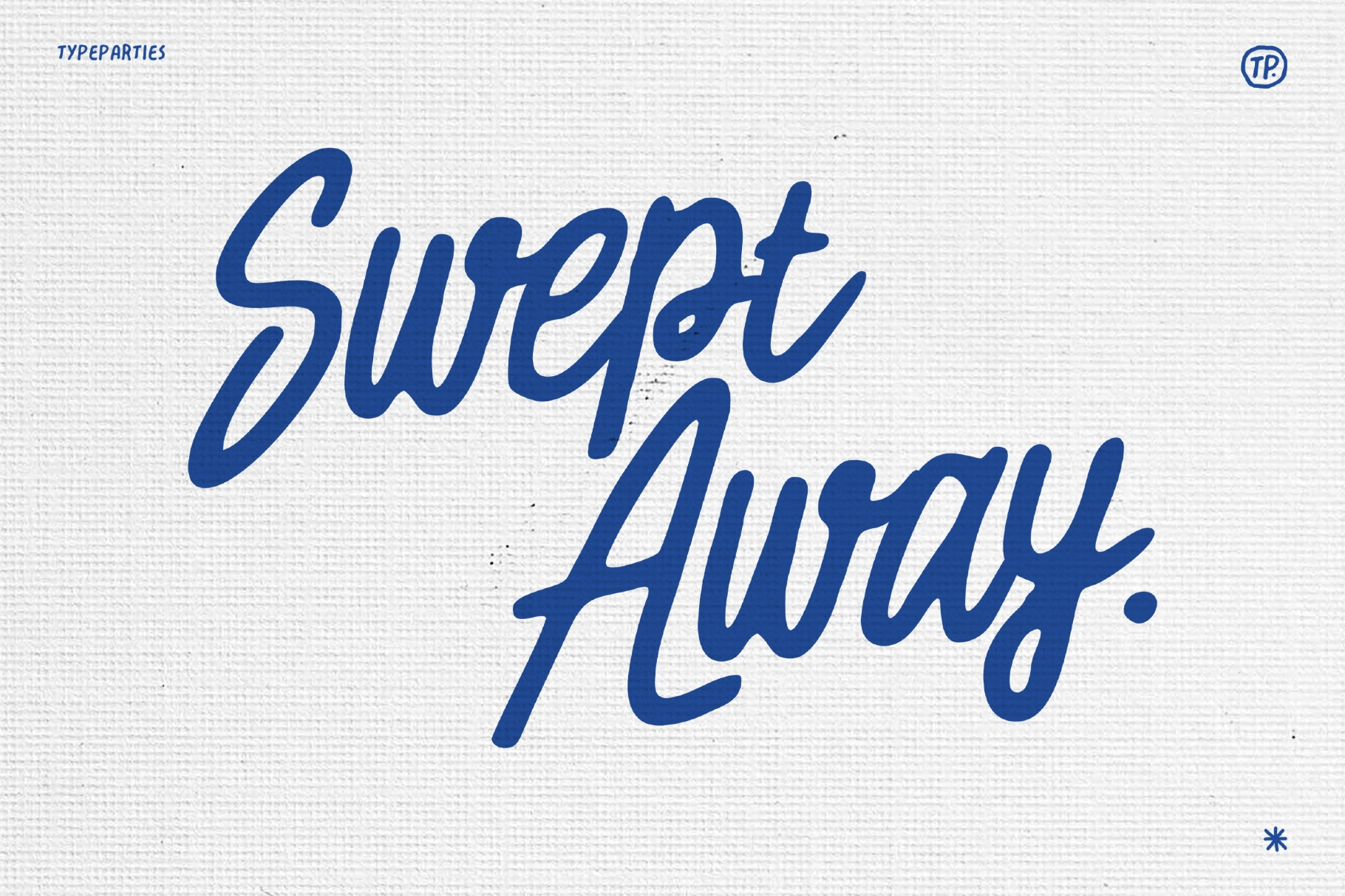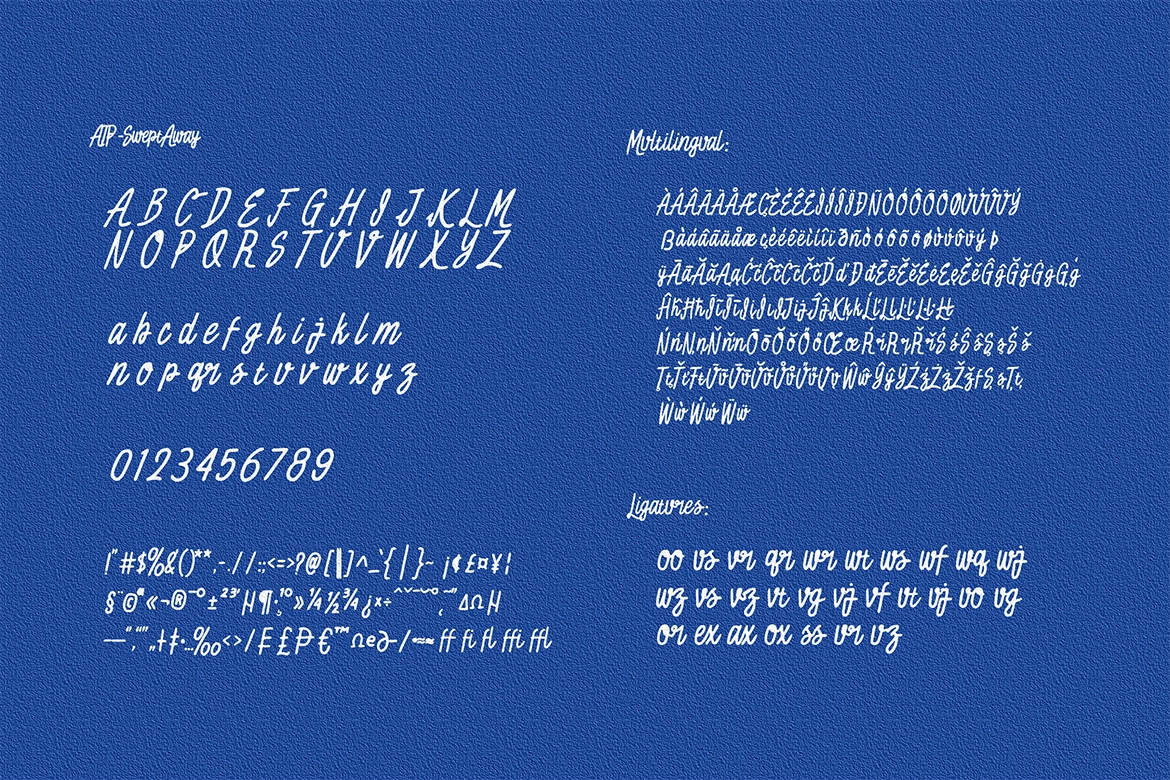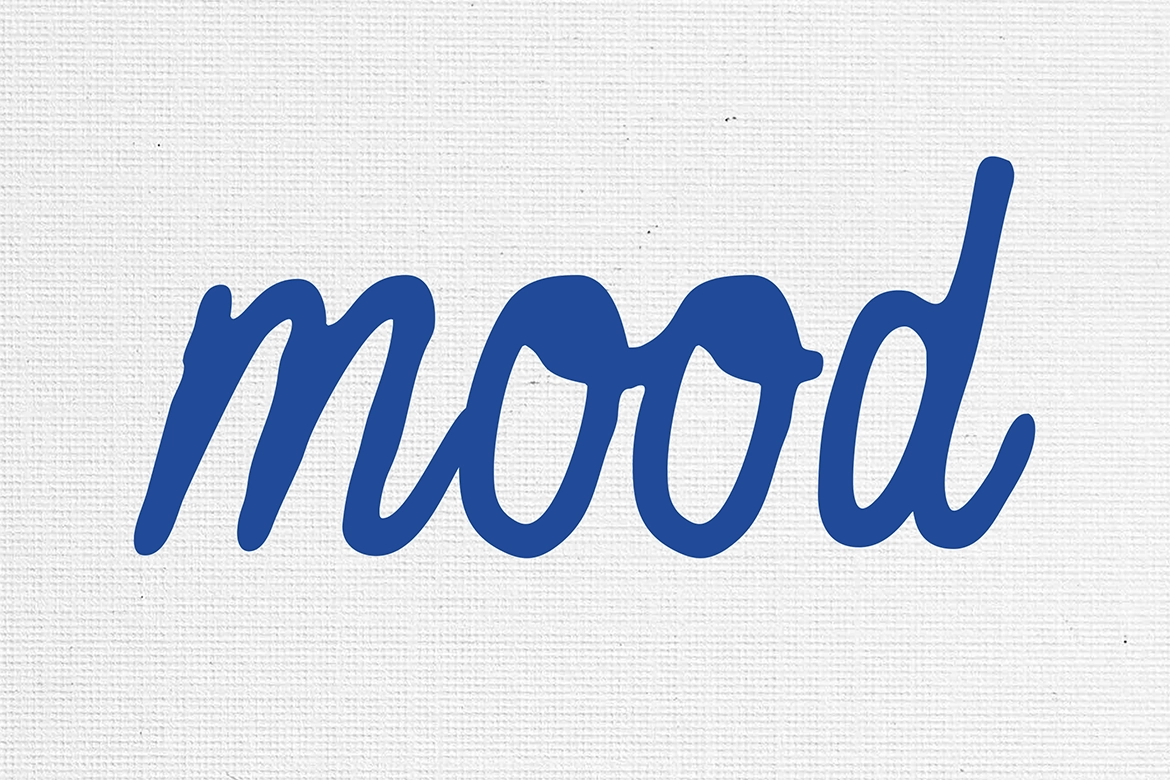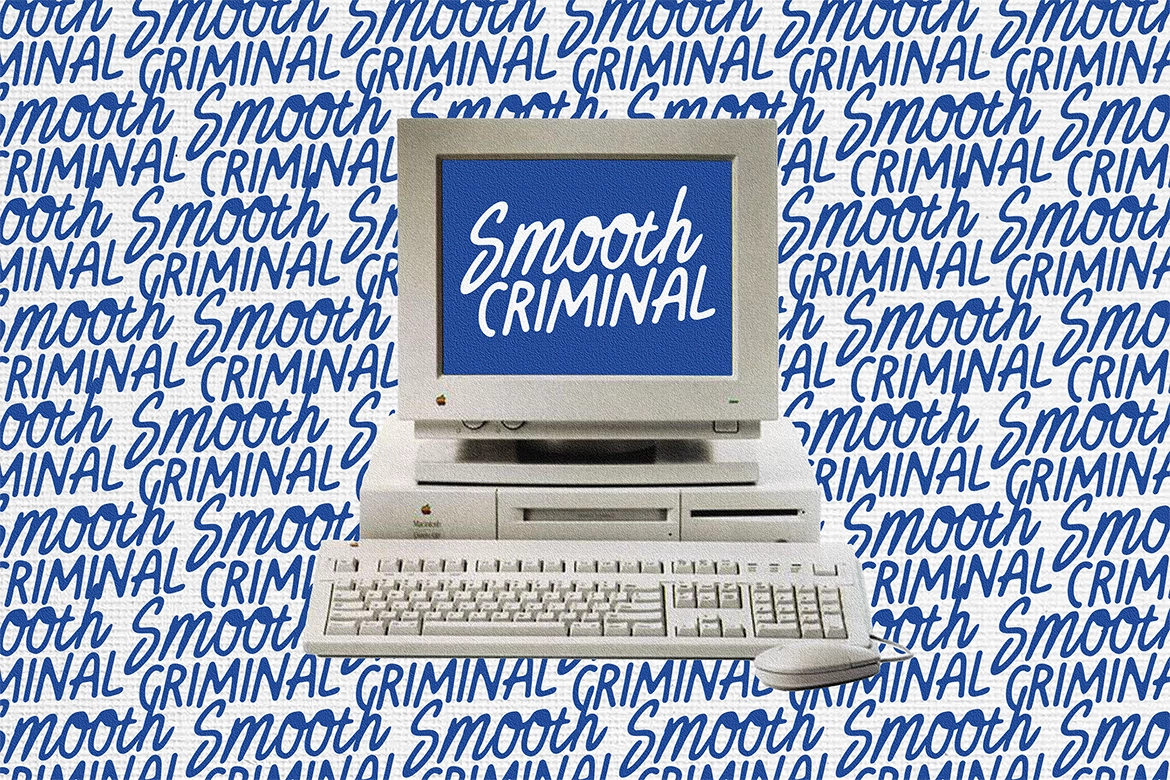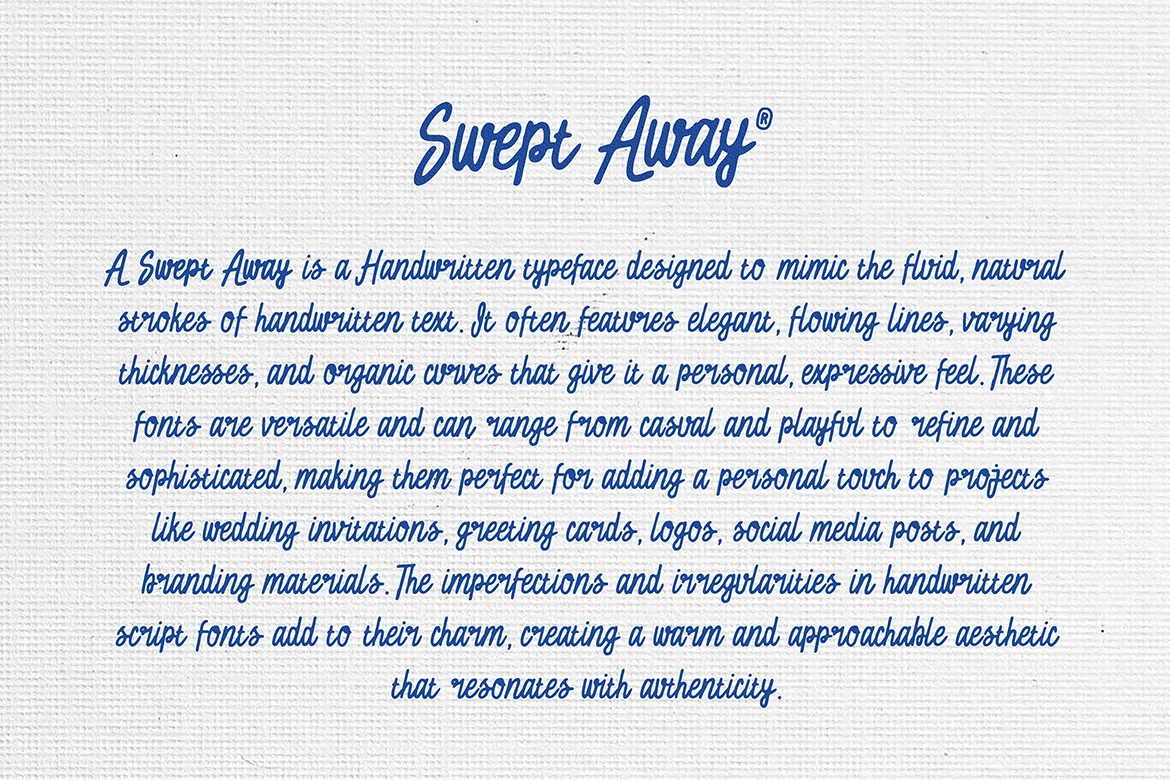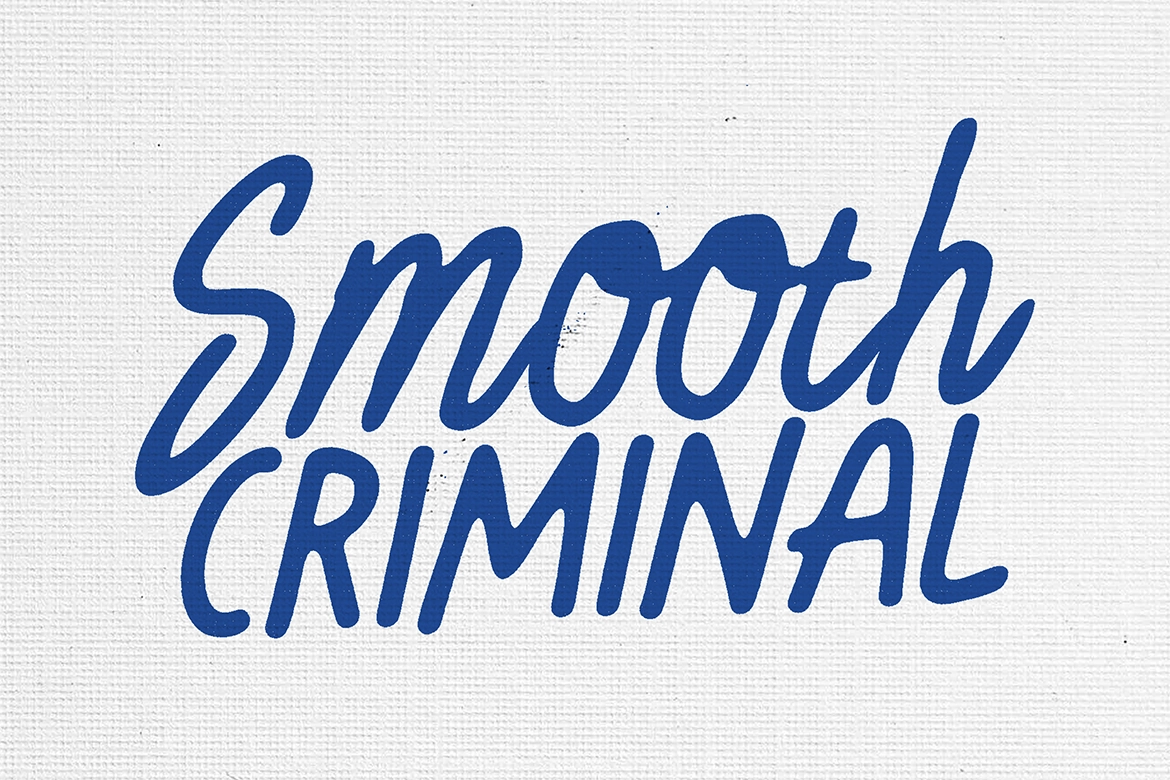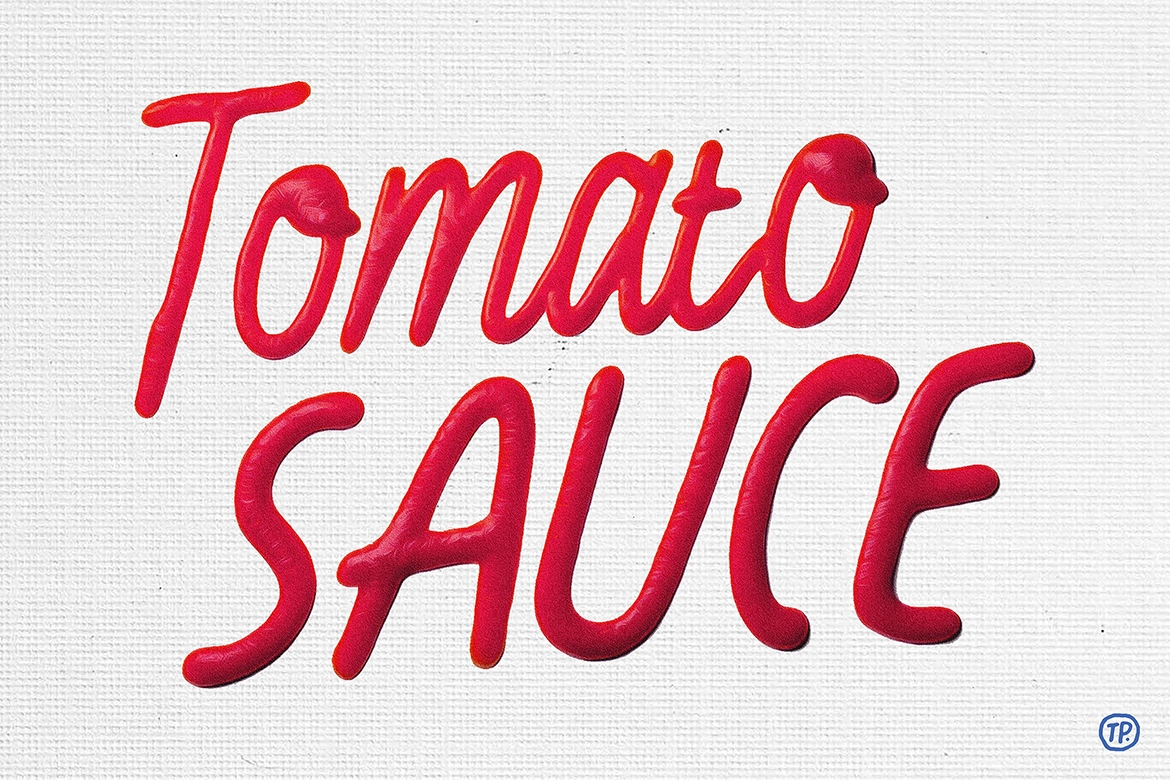
Swept Away - Handwritten Script Font
ATP-SweptAway
This handwritten script font has a smooth, expressive rhythm with thick brush-style strokes and natural pen pressure. Its connected letters, rounded curves, and easygoing signature character make it a strong pick for personal branding that needs warmth without looking too polished.
Use it for logo marks, wedding invitations, greeting cards, quote graphics, lifestyle branding, packaging, social media posts, apparel prints, stationery, creator signatures, café menus, product labels, and casual editorial accents.